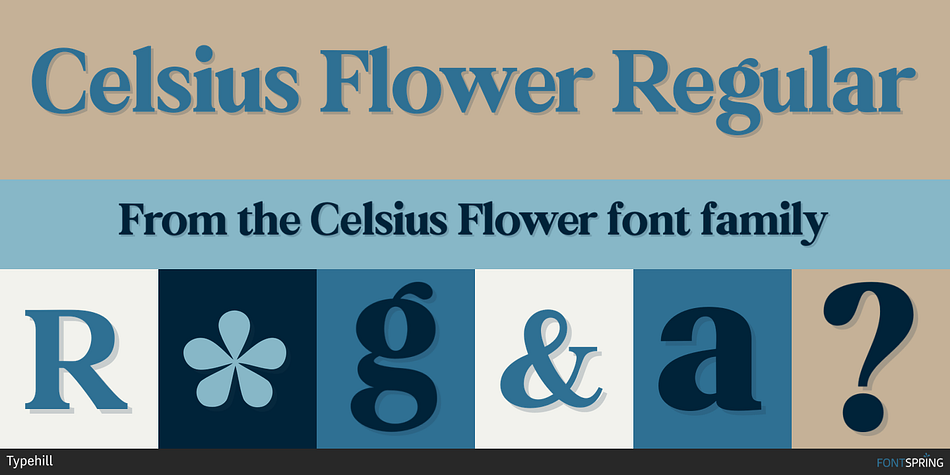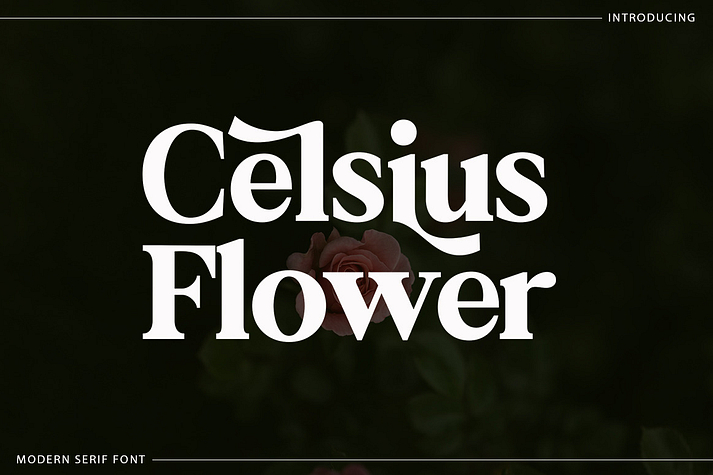
Celsius Flower Regular
Celsius Flower is a serif font family published by Typehill.
Celsius Flower attracts a typeface that is smooth, clean, unique, elegant, modern, feminine, sensual, glamorous, simple and very easy to read. Classic style is very suitable to be applied in various formal forms such as invitations, labels, menus, logos, fashion, make up, stationery, letterpress, romantic novels, magazines, books, greeting/wedding cards, packaging, labels.
Celsius Flower has alternative, Ligature and multilingual support.